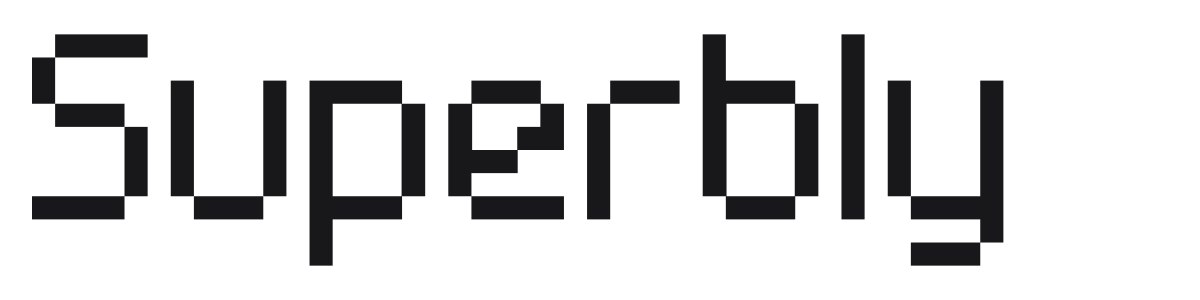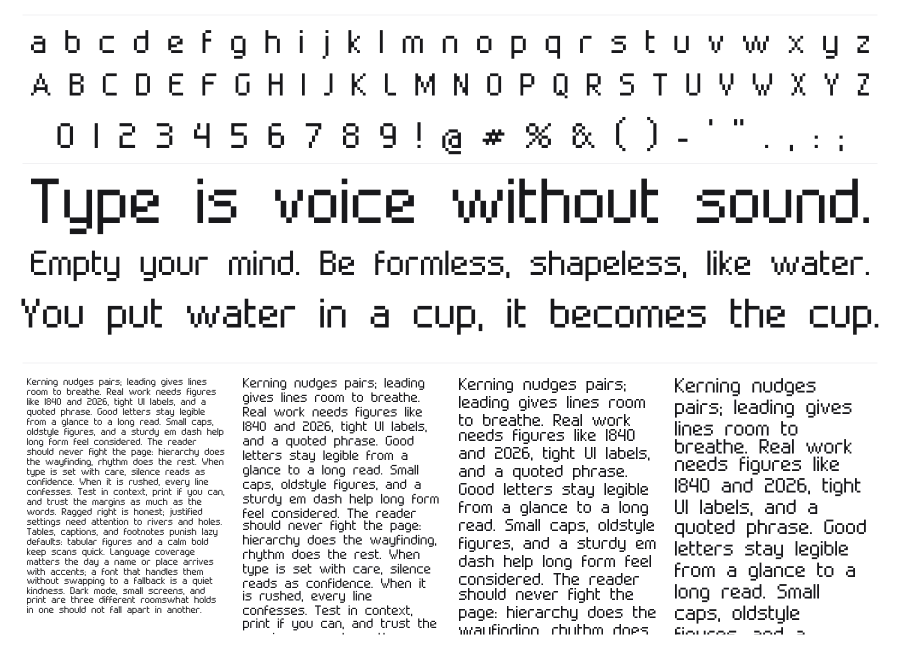
Superbly
Superbly is a bitmap pixel font from 2001 by Superlooper, constructed on a coarse square grid with blocky, uniform strokes. It carries a strong early-computing personality, sitting squarely in the tradition of screen fonts and arcade displays. A solid choice for retro-digital aesthetics in gaming, tech, or lo-fi creative projects.